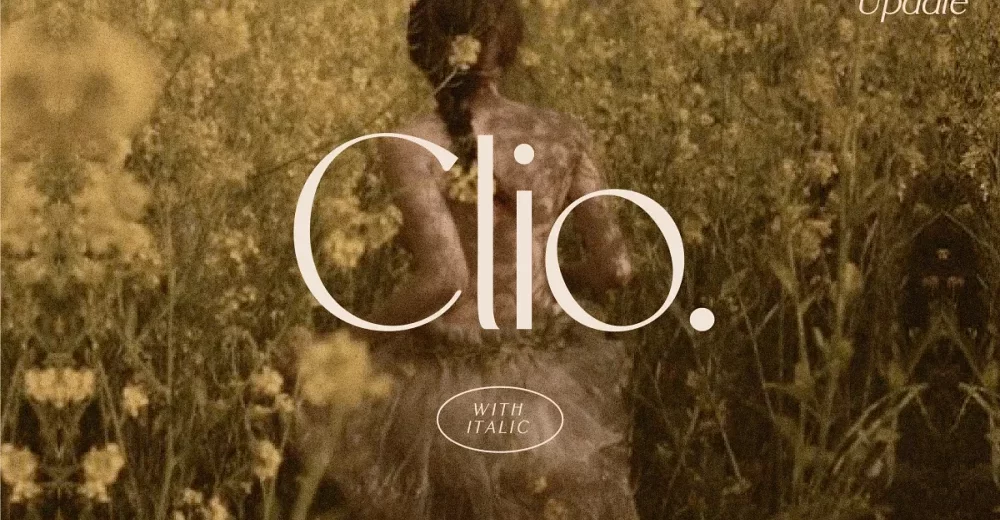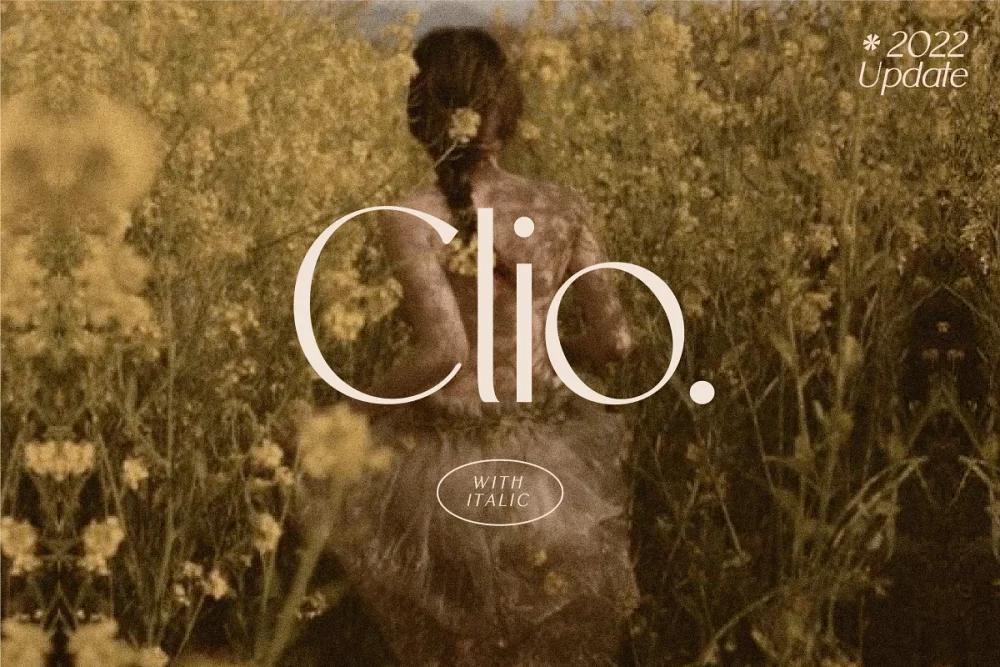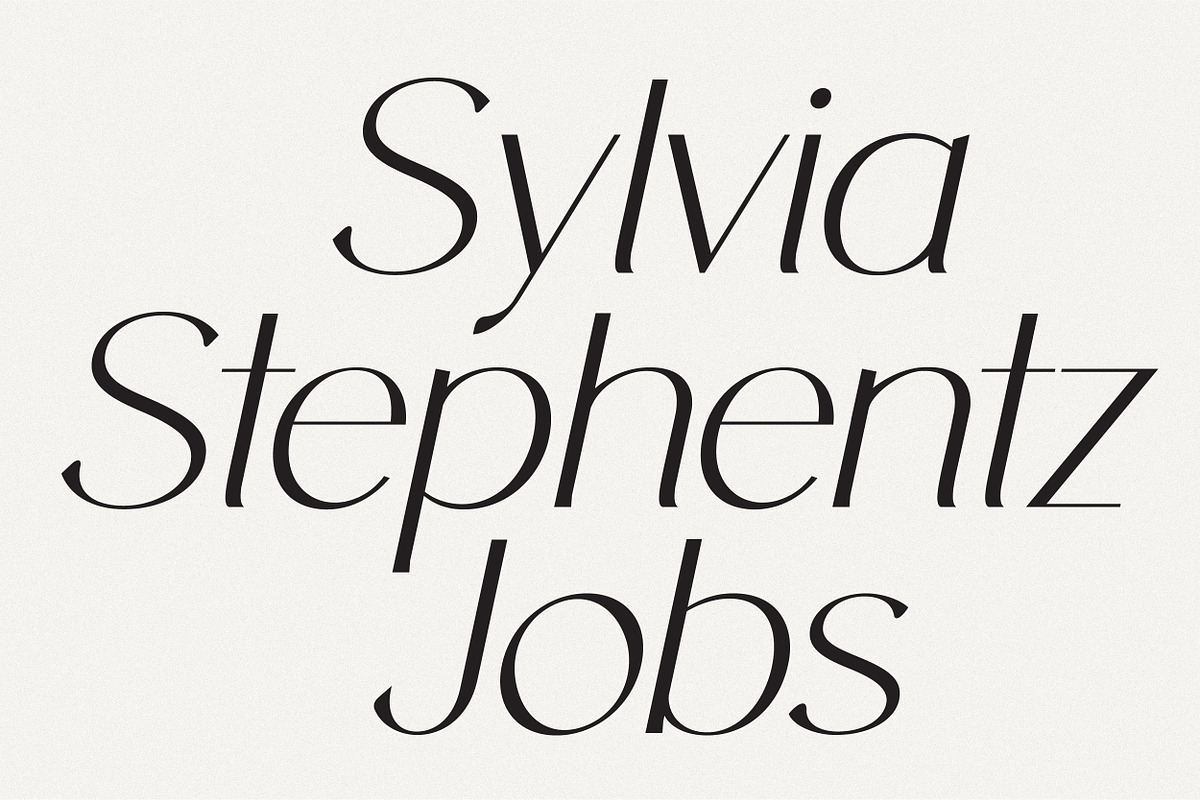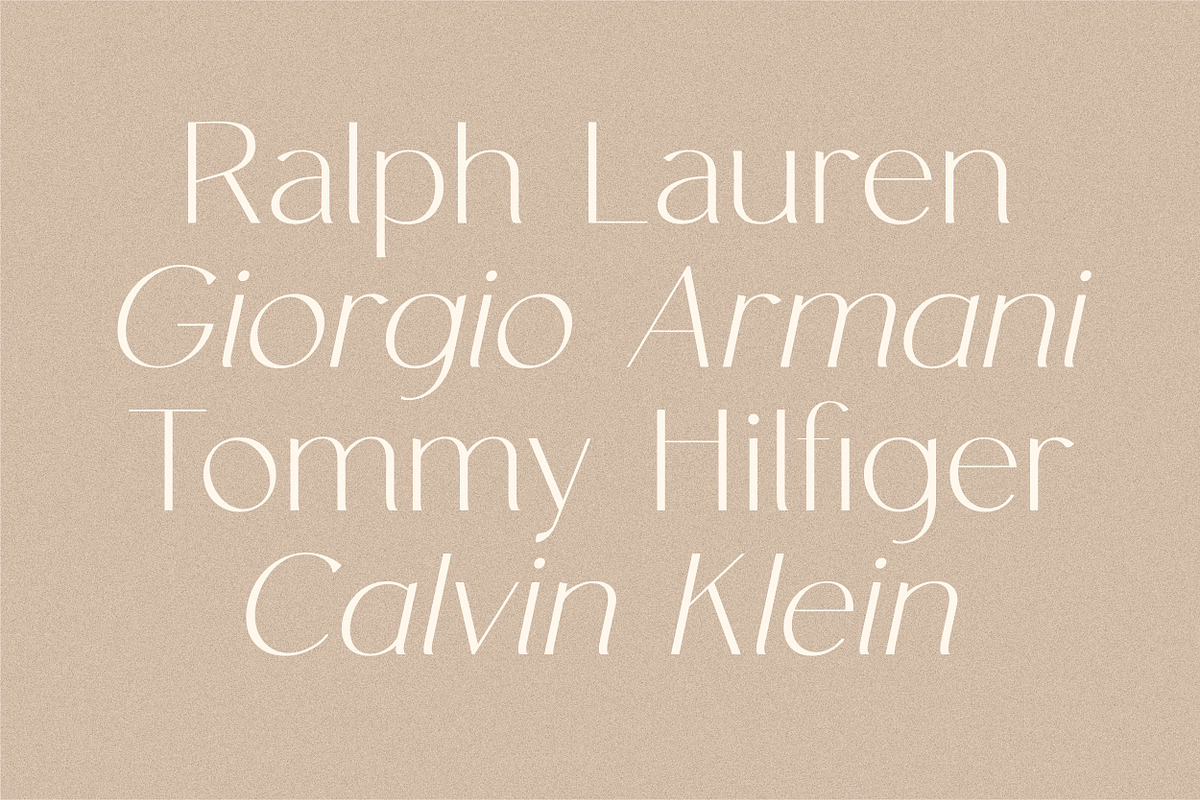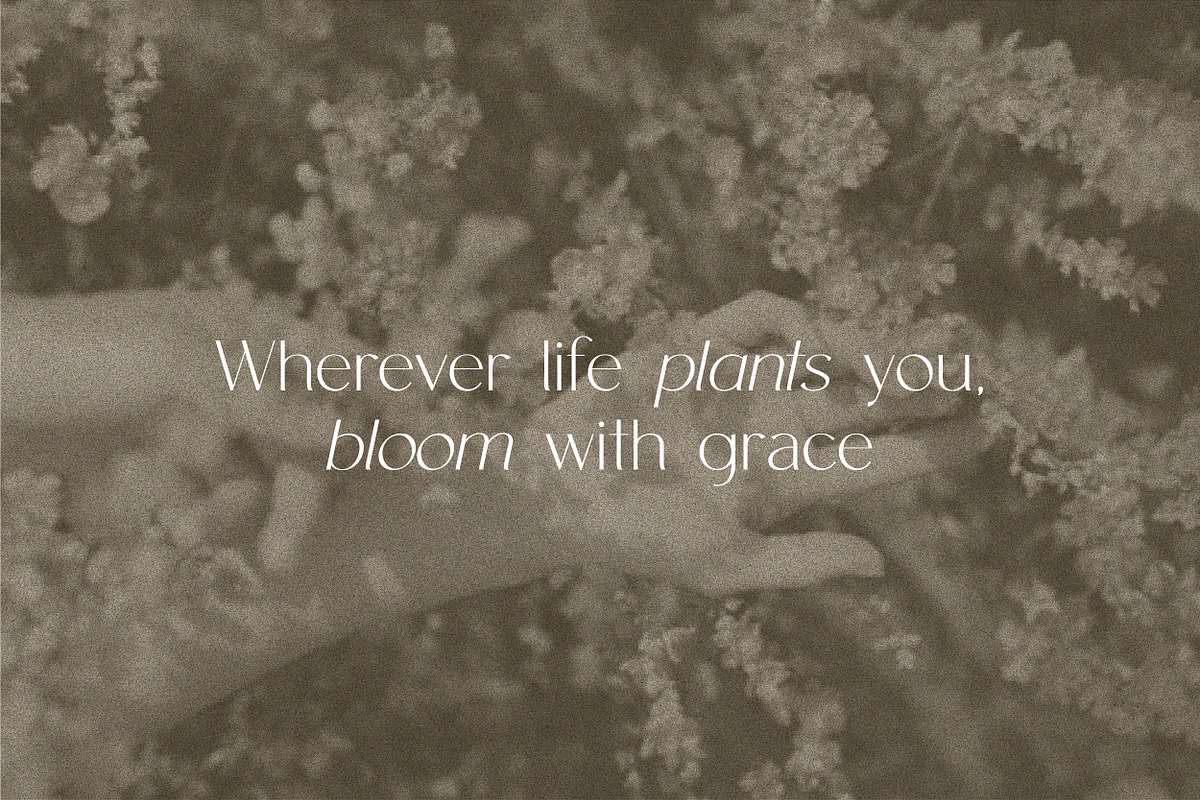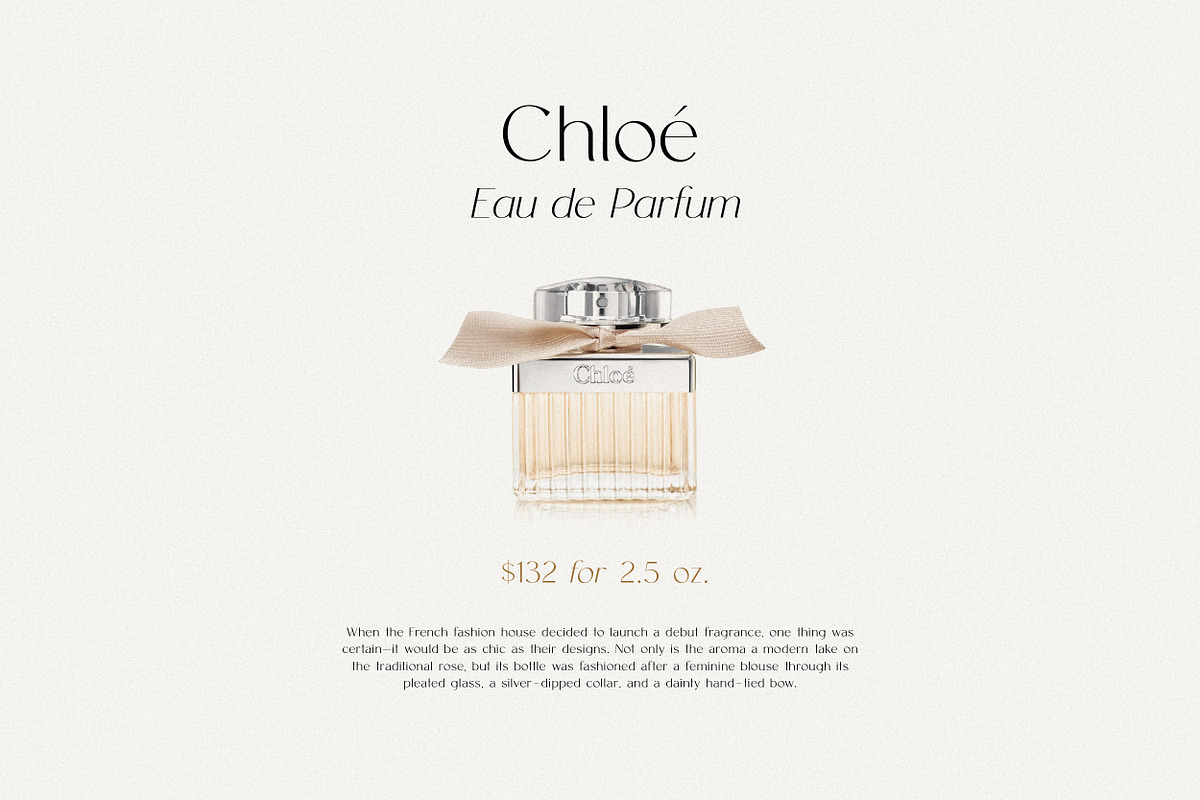
Clio – a display sans serif with simple, clean, and visual elegance. Specially designed for elegant-themed projects, perfectly suitable for creating simple, clean, lifestyle design such as logos, title, and magazine and more. The font features standard ligatures.